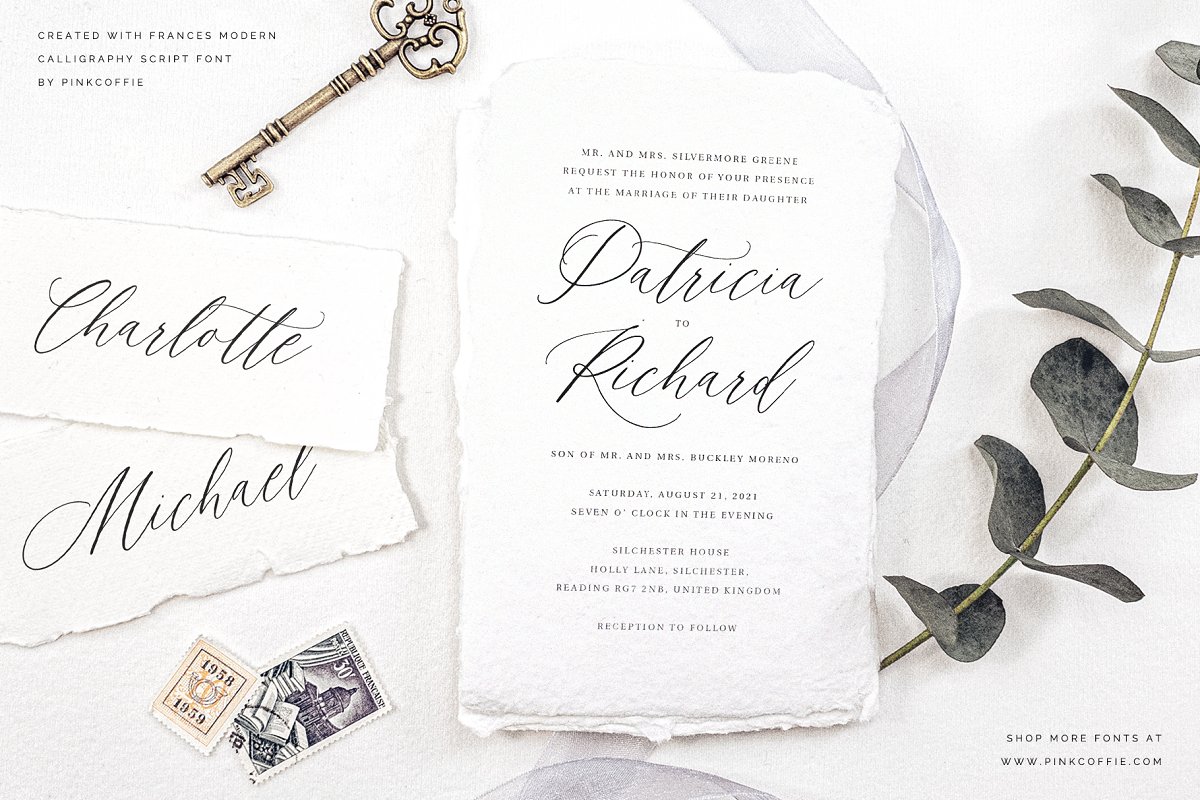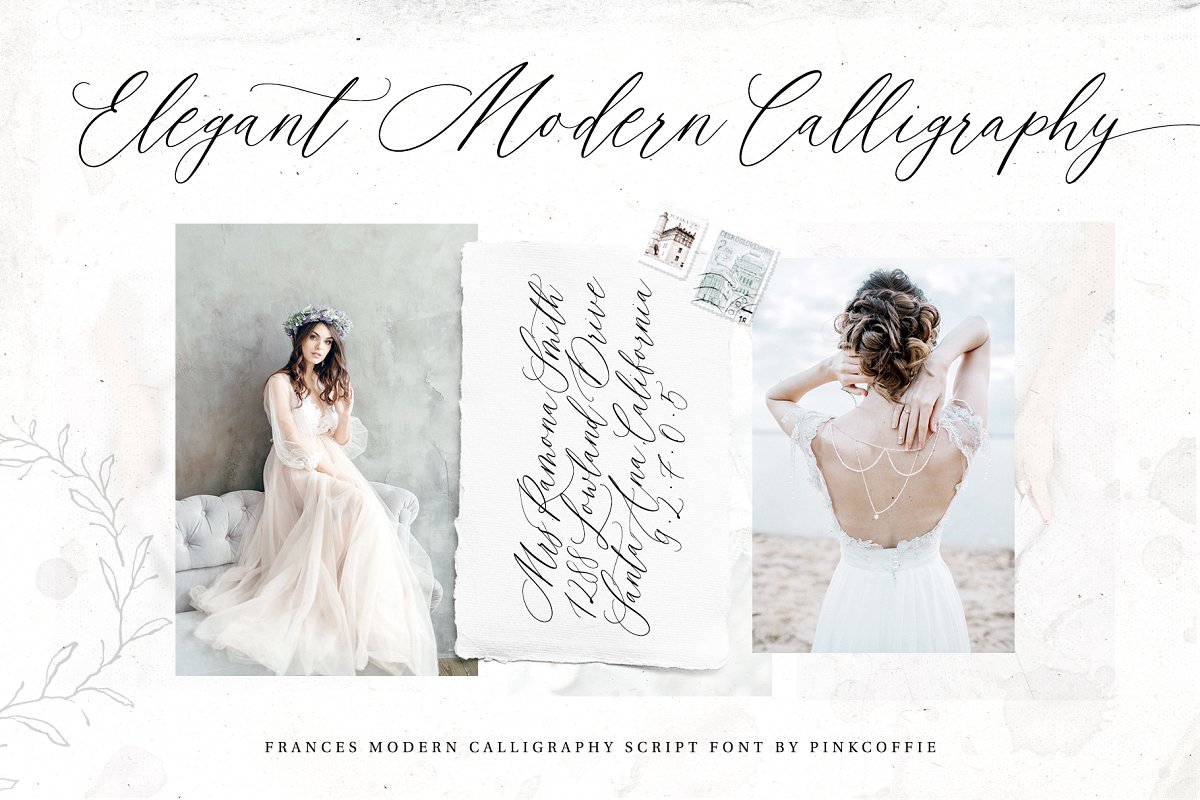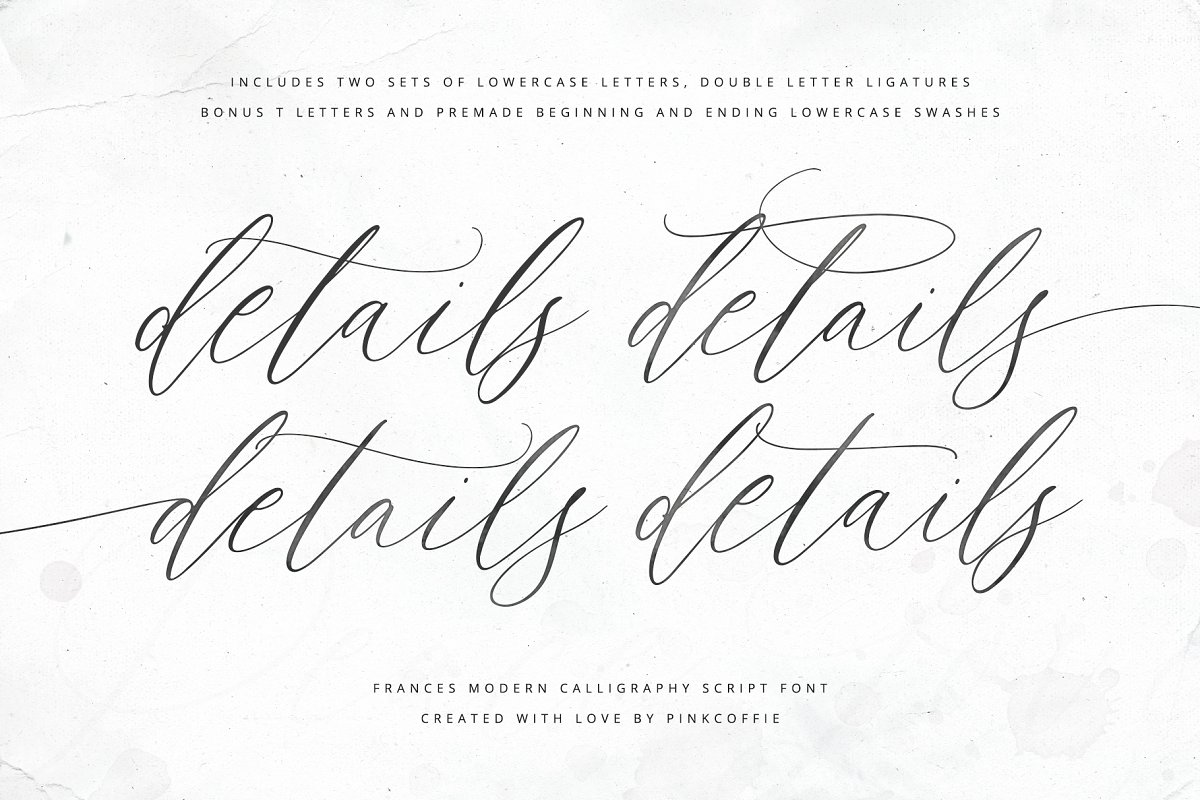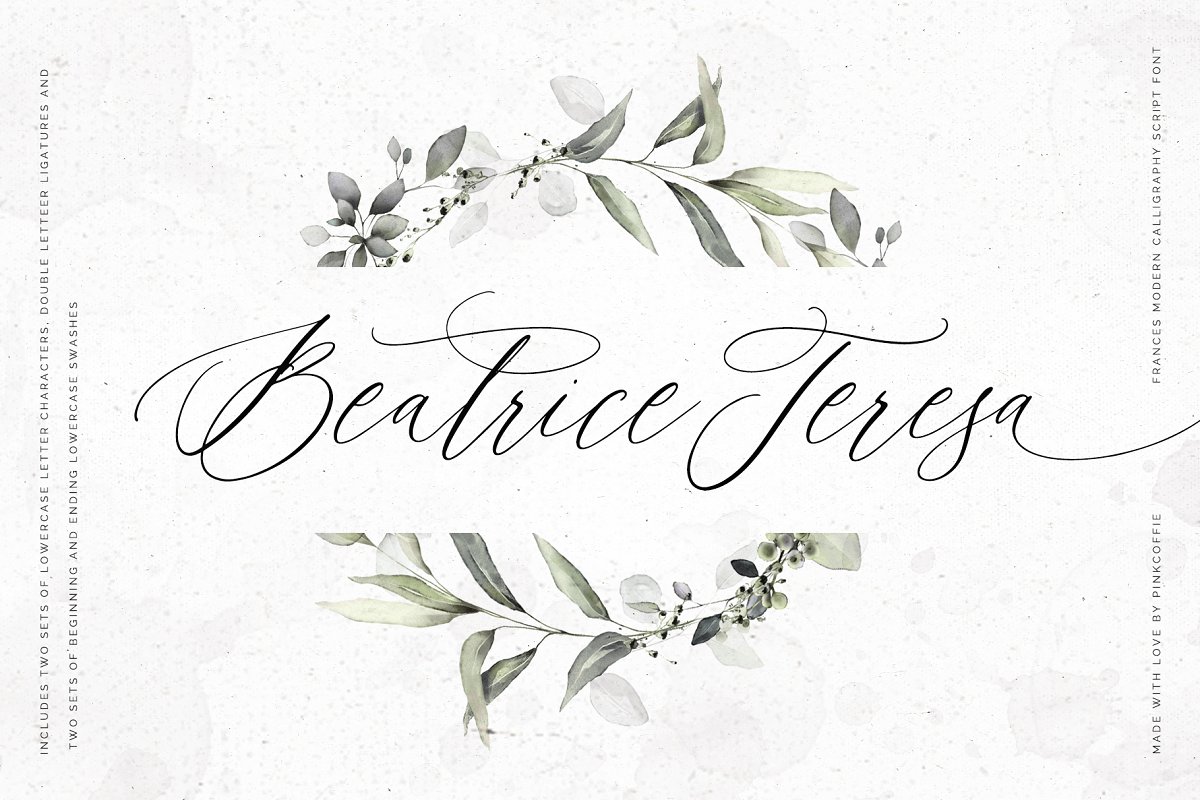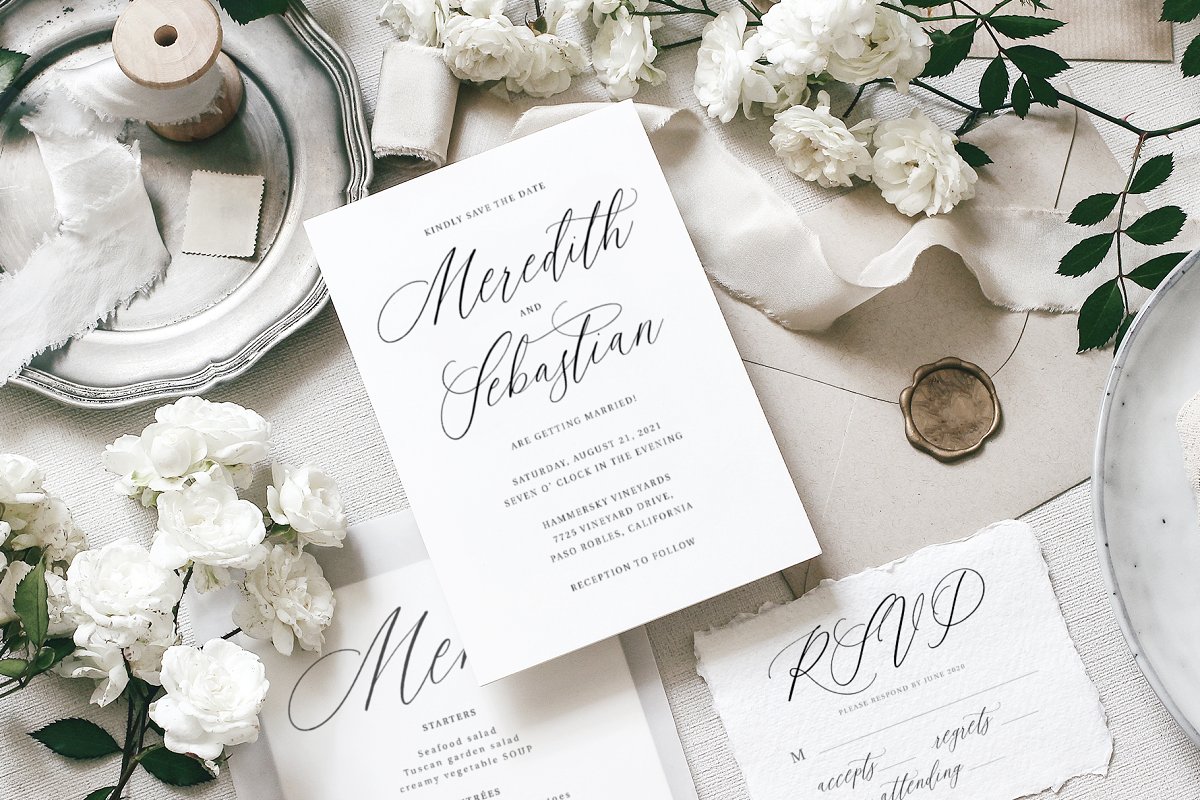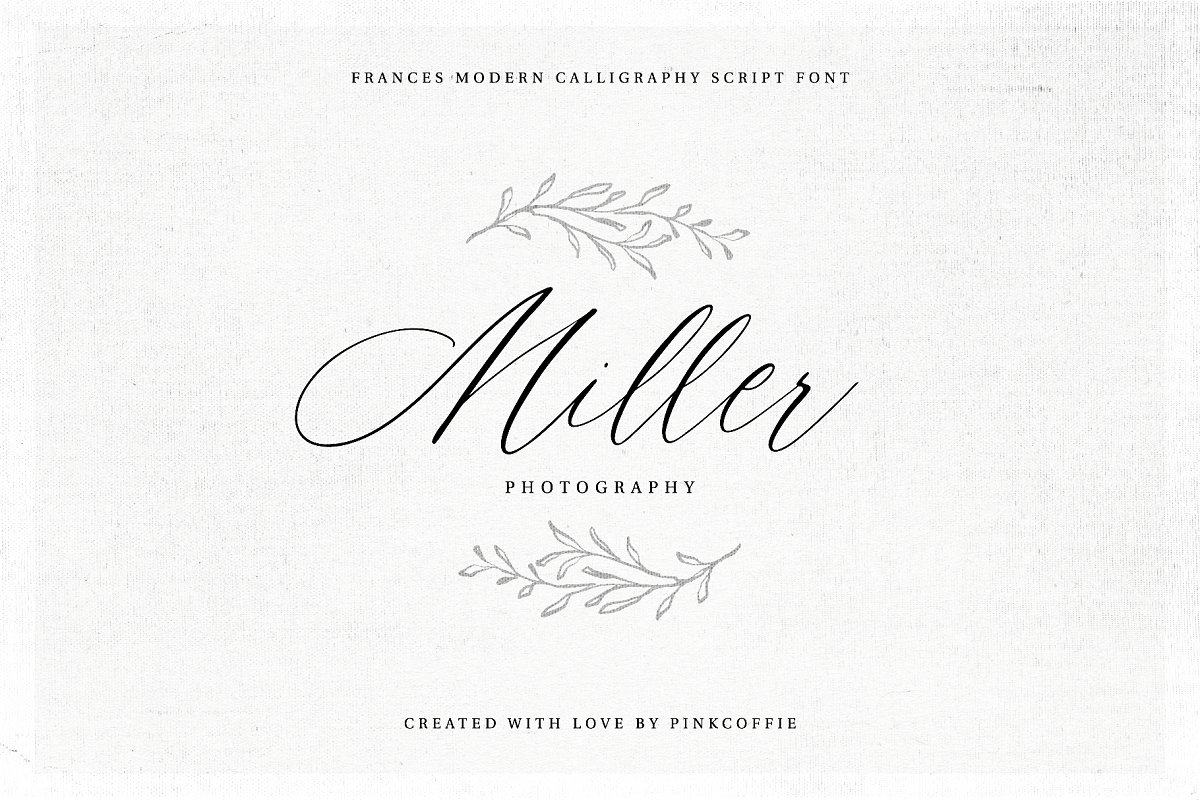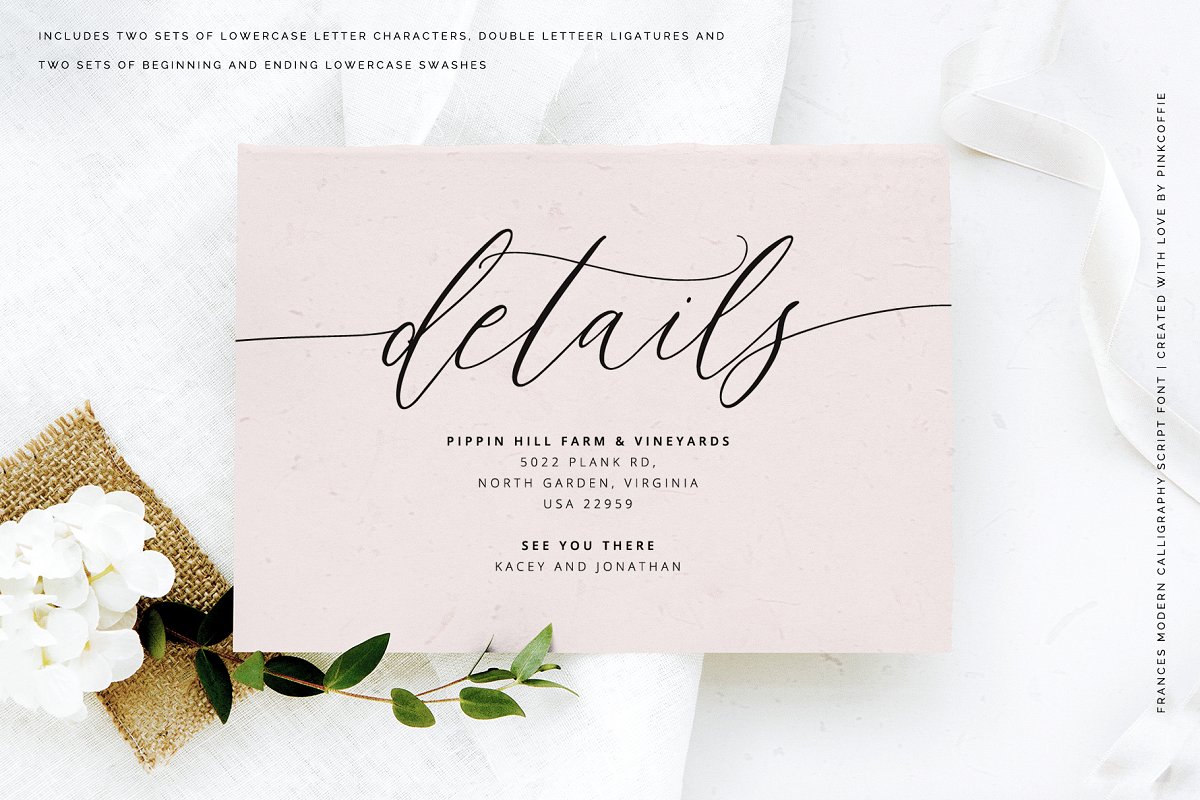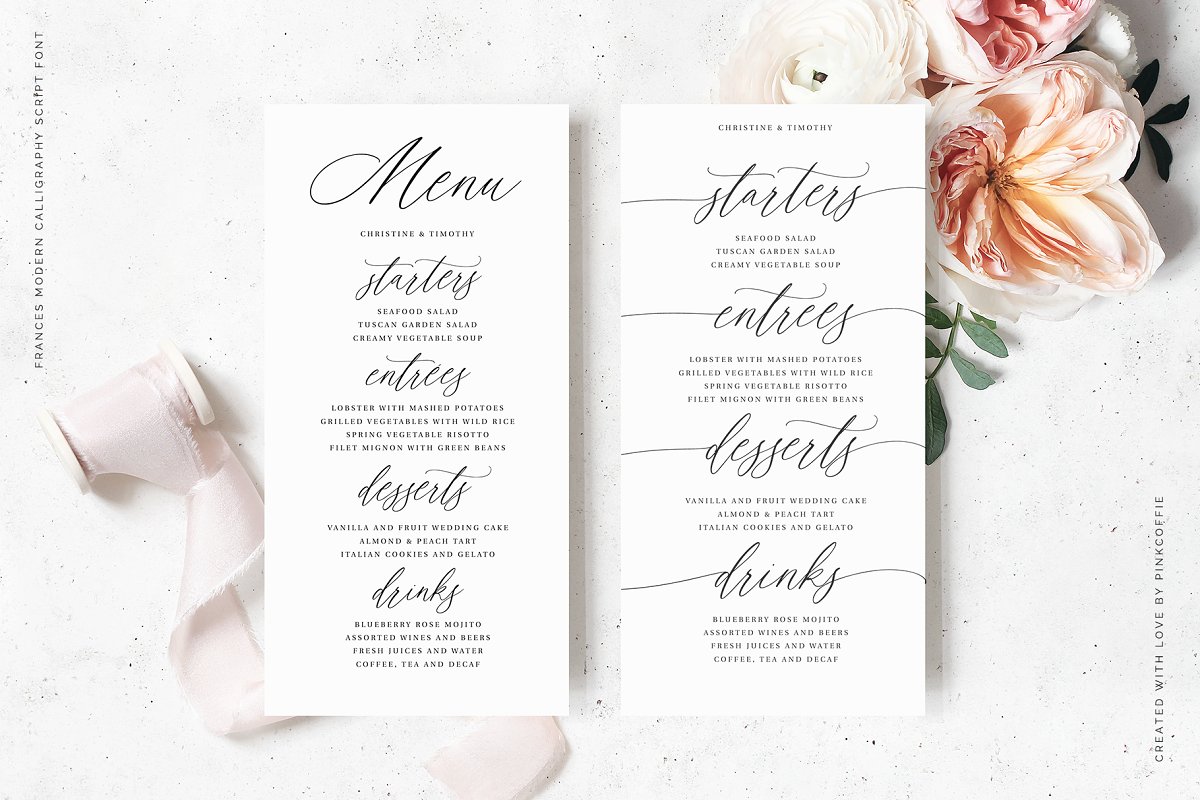
About the Frances Modern Calligraphy Script Font
Say hello to Frances, an elegant and feminine modern calligraphy script font packed with two lowercase letter sets, double-letter ligatures, bonus alternates for t, r, and s letters, and two sets of premade beginning and ending swashes to mix and match, Frances can be used for various projects including but not limited to wedding invitations and wedding suites, stationery, packaging, feminine branding, logos, quotes, and prints
❤ MULTILINGUAL SUPPORT: ❤As all my fonts, Frances includes multilingual support and the following multi-lingual characters: ÀÁÂÃÄÅĂĄÆĆČÇĎĐÈÉÊĚËĘÌÍÎÏĹĽŁŃŇÑÒÓÔÕÖŐØŔŘŚŠŞŤÙÚÛÜŰŮÝŸŹŻŽ ãàáâäåăąæßćčçďđèéêěëęìíîïľłńňñòóôõöőøŕřśšşťùúûüűůýÿźżžAaaand I think that’s all